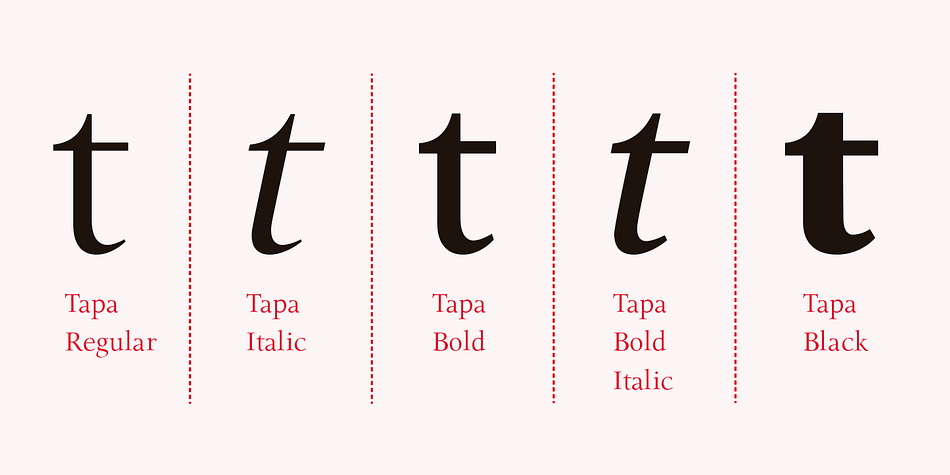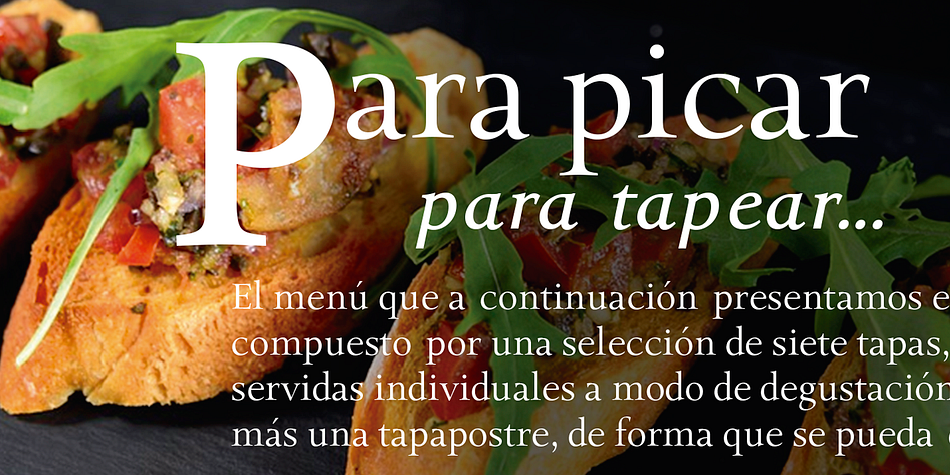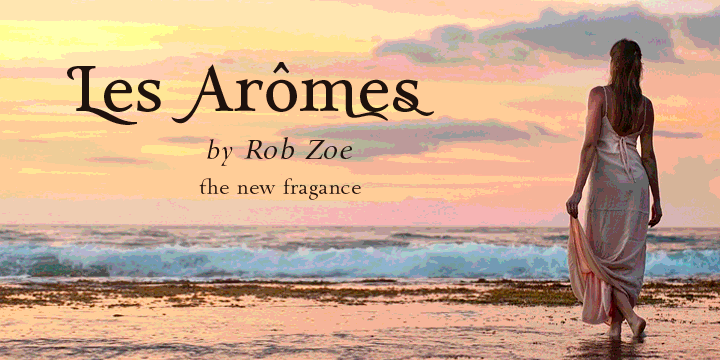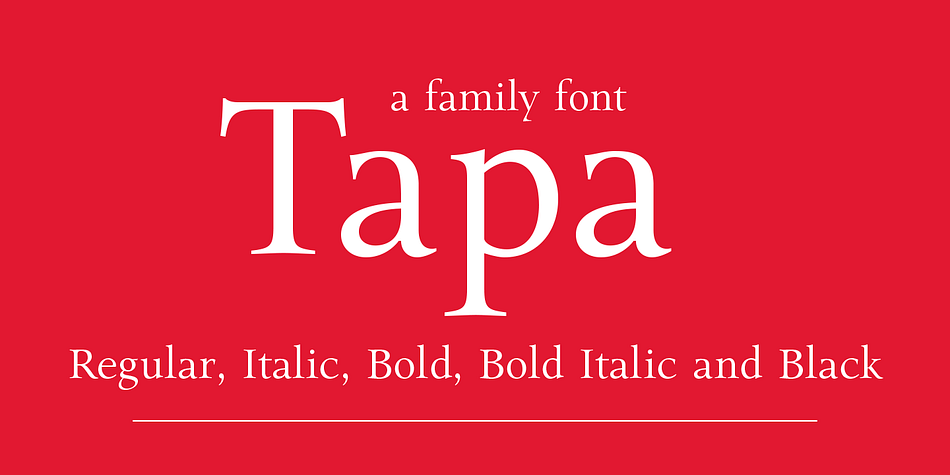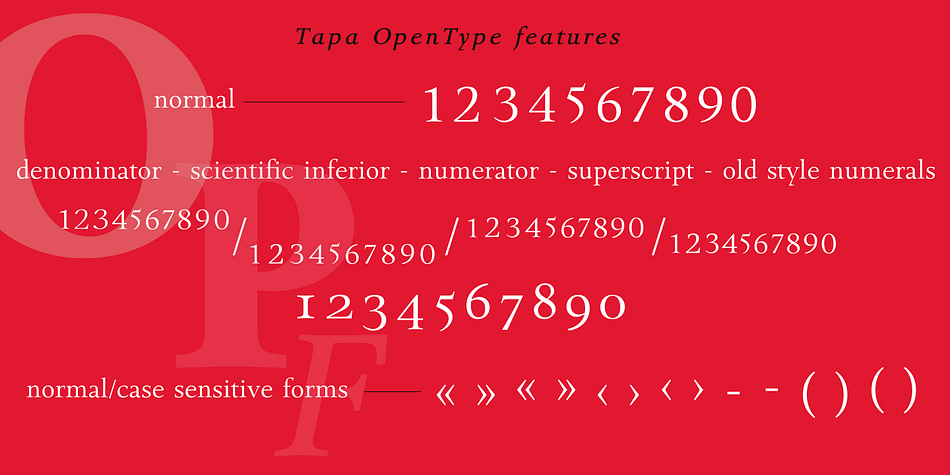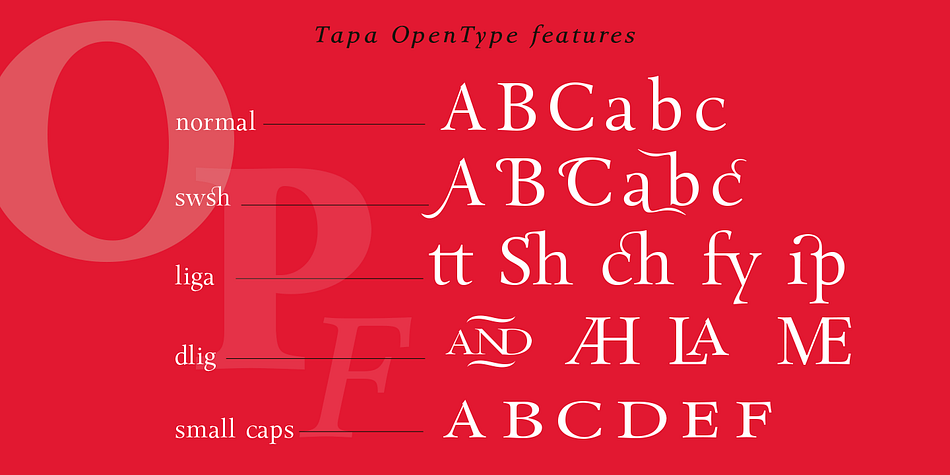
Designed by Carine de Wandeleer, Tapa is a serif font family. This typeface has five styles and was published by Eurotypo.
Tapa is a classical old roman typeface family which it has been cut with sharp serif; Its stems, proportions, serif and elegant angles, may induce into a new view of our contemporary digital age.
The kerning pairs were carefully controlled to ensure a good readability and nice page tone contrast.
The Tapa font family is completed with true round italics (without compression). And enriched with a full set of OpenType features containing ligatures, discretional ligatures, old style numerals and swashed letters.